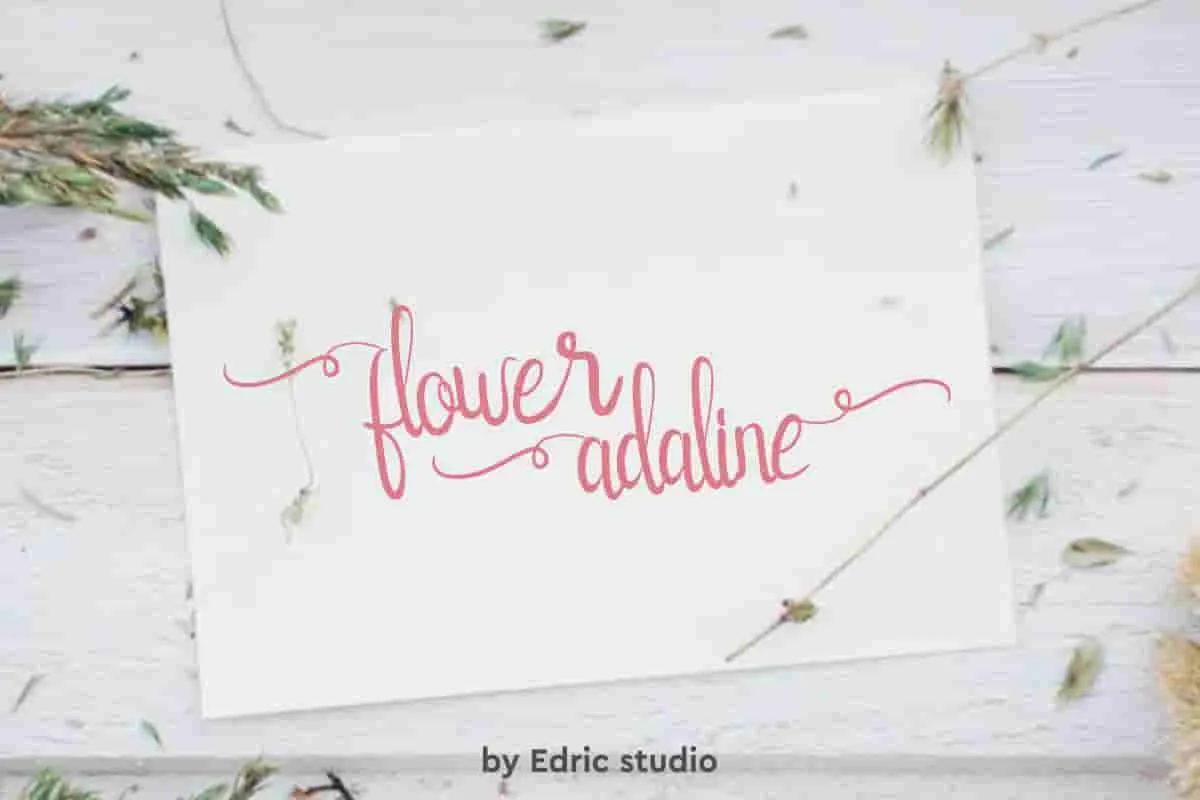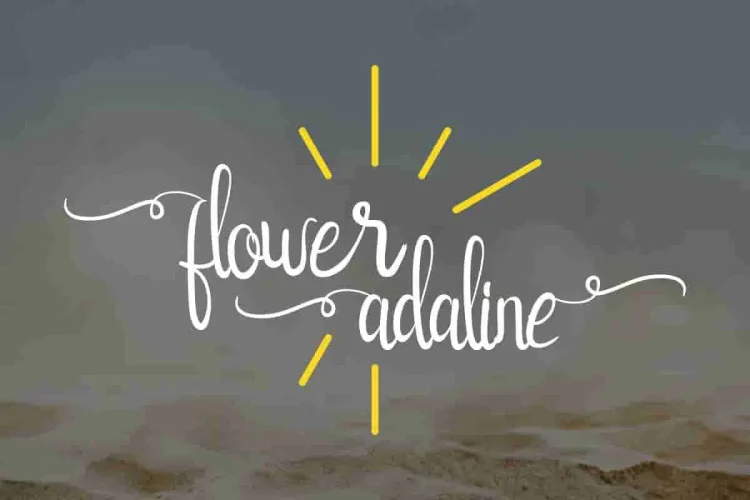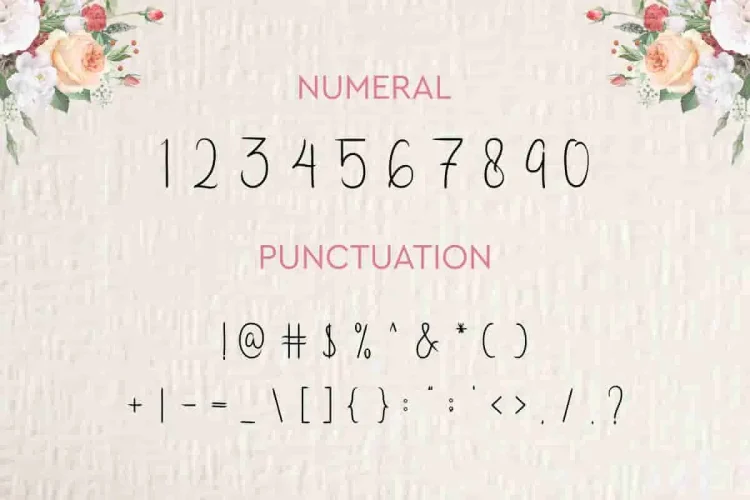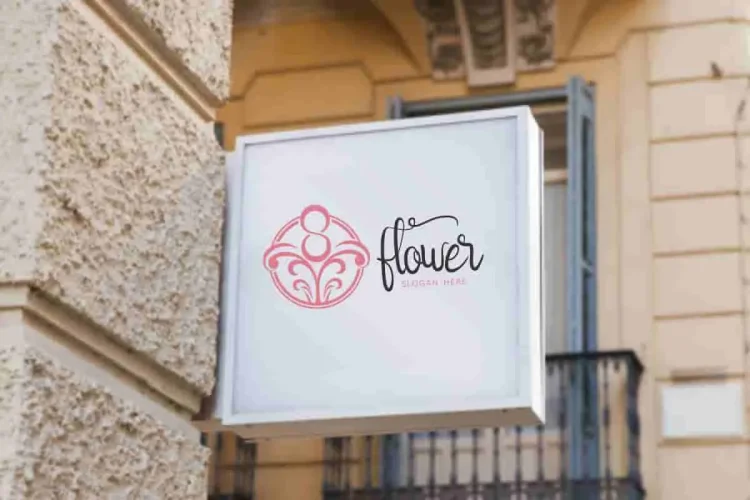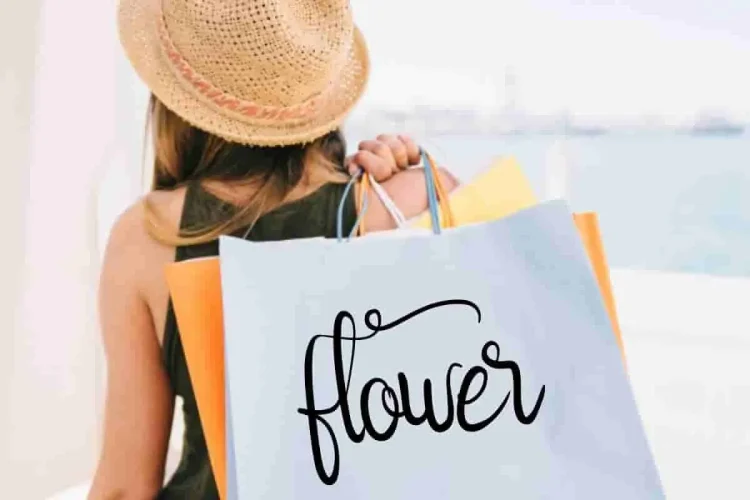
FlowerAdaline Script Font
Say hello to FlowerAdaline Script Font is a handmade script font with a handwriting style.
Inspired by natural handwriting and artistic flair, this font captures attention with its flowing curves and delicate swashes. As seen in our product images, each letter feels thoughtfully drawn, creating a romantic and approachable vibe. The “flower adaline” examples in rose pink and white settings show how effortlessly it complements rustic, floral, or beach-themed designs. This font includes bonus ligatures and stylistic alternates to make your text look even more natural and flowy.
Whether you’re creating wedding invitations, social media quotes, logo designs, or greeting cards, FlowerAdaline adds an authentic, handwritten charm that elevates your message. Its graceful form makes it a go-to script font for modern creatives who value both beauty and usability.
• Elegant, feminine handwriting style
• Perfect for weddings, branding, and social content
• Looks stunning in both digital and print formats